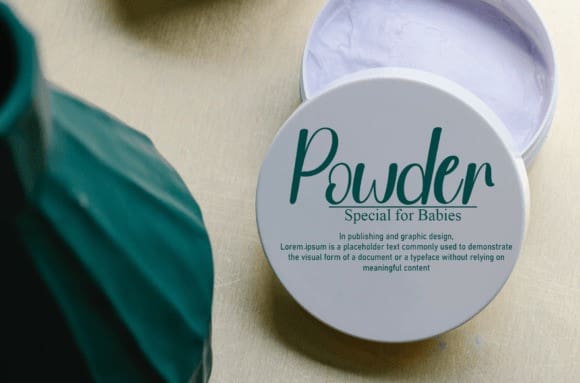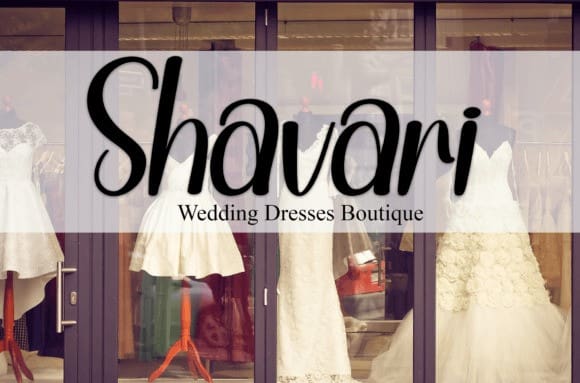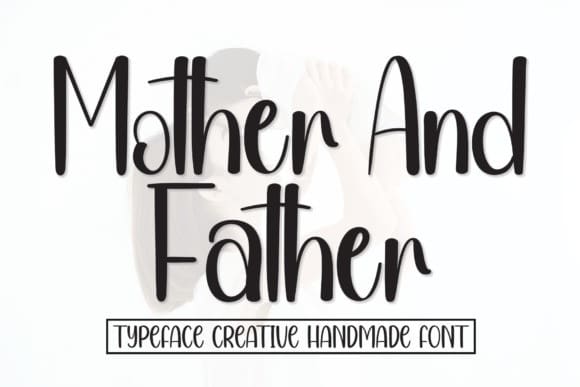
Mother And Father Font
Mother and Father Font is a sweet and friendly handwritten font. Fresh and neat, this font is ideal for writing wedding invitations, cards, or any other design that might need a fun touch!